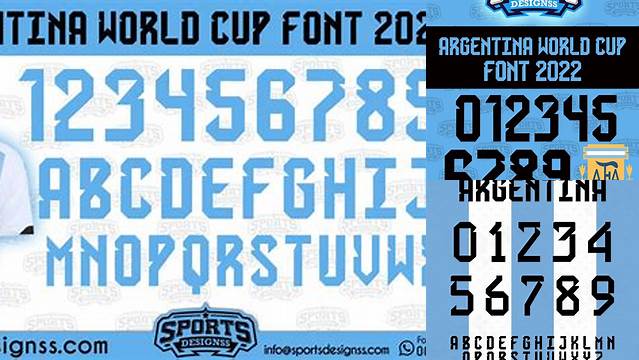
Hey guys! Are you hyped for the 2026 World Cup? So are we! And what better way to show your support for Argentina than by sporting their iconic jersey? But what if you want to personalize it with your own name and number? That's where the official Argentina 2026 jersey font comes in. In this article, we're going to dive deep into everything you need to know about this awesome font, including where to download it for free and how to use it. Let's get started!
Argentina National Team Font
The Argentina national team font is more than just a typeface; it's a symbol of national pride and sporting history. This font, meticulously designed, captures the essence of Argentinian football. Think about it, the font used on the jerseys isn't just randomly chosen. It's a deliberate design choice that reflects the team's identity and the nation's spirit. When you see that font, you immediately think of legendary players like Messi, Maradona, and countless others who have donned the Albiceleste. The curves, the weight, the overall style – it all contributes to a powerful visual representation of Argentina's footballing legacy. Imagine the countless hours designers spend perfecting each character, ensuring it embodies the passion and flair associated with Argentinian football. So, when you’re looking to download this font, you’re not just getting letters and numbers; you’re getting a piece of Argentina's heart and soul. The font acts as a visual shorthand, instantly recognizable and deeply connected to the emotions of fans worldwide. It’s a crucial element in building and maintaining the team's brand identity, ensuring consistency across all platforms, from the jerseys on the field to the merchandise in stores.
Argentina Jersey Font Style
The Argentina jersey font style is a distinct and recognizable design that sets it apart from other national team fonts. It's not just about readability; it's about creating a visual identity that resonates with the team's history and the nation's spirit. The font typically features a bold, modern design, often with a touch of classic elegance. Think clean lines, strong strokes, and a balanced aesthetic that makes it both eye-catching and easy to read on the field. The specific style can vary slightly from year to year, reflecting the current design trends and the team's overall branding strategy. However, the core elements – the boldness, the clarity, and the touch of Argentinian flair – remain consistent. This consistency is crucial for maintaining the team's visual identity and ensuring that fans can instantly recognize the jersey, regardless of the specific design details. The font style also plays a key role in the overall aesthetic of the jersey, complementing the colors, crest, and other design elements. It’s a subtle but powerful element that contributes to the iconic look of the Argentinian national team.
Argentina Jersey Font History
The history of the Argentina jersey font is a fascinating journey through decades of footballing heritage and design evolution. Over the years, the font has undergone numerous transformations, each reflecting the changing times and the evolving aesthetic preferences. Early versions of the font were often simpler and more traditional, focusing on readability and functionality. As design technology advanced and the team's branding became more sophisticated, the font evolved to incorporate more modern elements, such as bolder strokes, sharper angles, and unique serifs. Key moments in the team's history, such as World Cup victories and major tournament appearances, have often been marked by subtle changes to the font, creating a visual link between the team's on-field success and its design identity. The font is not just a practical element; it's a living document of the team's history, reflecting the triumphs, the challenges, and the enduring spirit of Argentinian football.
How to Identify the Correct Font
Identifying the correct font used on the Argentina jersey can sometimes be tricky, as the font may vary slightly from year to year and even across different competitions. However, there are several key characteristics to look for that can help you narrow down your search. First, pay close attention to the overall style of the font. Is it bold and modern, or more classic and elegant? Look for distinctive features, such as the shape of the serifs (the small strokes at the ends of the letters) or the curvature of the letterforms. Online font identification tools can be a great help in this process. These tools allow you to upload an image of the font and will attempt to match it to fonts in their database. Another helpful resource is to consult online forums and design communities, where fellow fans and font enthusiasts may be able to help you identify the font. Remember, the official font used on the Argentina jersey is often a custom design, so you may not be able to find an exact match. However, by carefully analyzing the font's characteristics and using the resources available to you, you can often find a close approximation that captures the spirit of the Argentinian national team.
What are the best font alternatives for the Argentina jersey font?
If you're looking for font alternatives for the Argentina jersey font, there are several options to explore. One approach is to look for fonts that belong to the same font family or that share similar characteristics, such as being a bold sans-serif with a modern and sporty feel. Online font identification tools can also be helpful in this process, as they often suggest similar fonts based on the characteristics of the font you're trying to identify. Some popular font alternatives include Montserrat, Bebas Neue, and Futura.